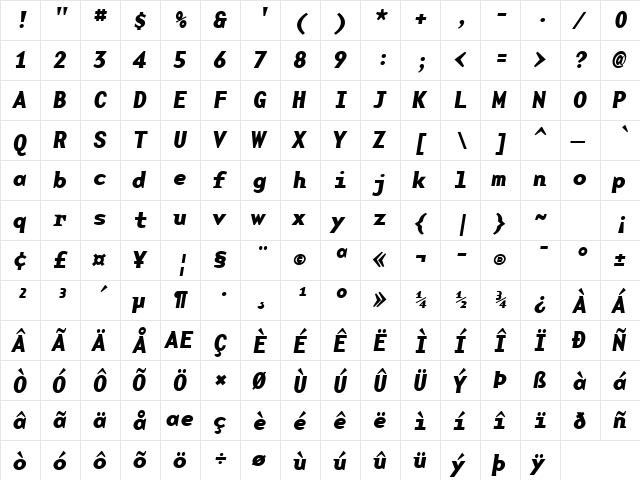
BaseMonoWideBoldItalic Bold Italic Font Preview
Design Context for BaseMonoWideBoldItalic Typeface
BaseMonoWideBoldItalic uses fixed-width spacing throughout, giving it the structured, systematic character associated with coding environments and technical documentation. The slanted form adds forward momentum and visual energy. The heavy weight commands attention and anchors typographic hierarchies.
Well-suited to data-driven dashboards, coding tutorials, and any design that wants to reference the world of programming.
Pro Tip: Use BaseMonoWideBoldItalic with slightly increased line-height for extended reading — fixed-width spacing can feel dense in longer passages without extra breathing room.